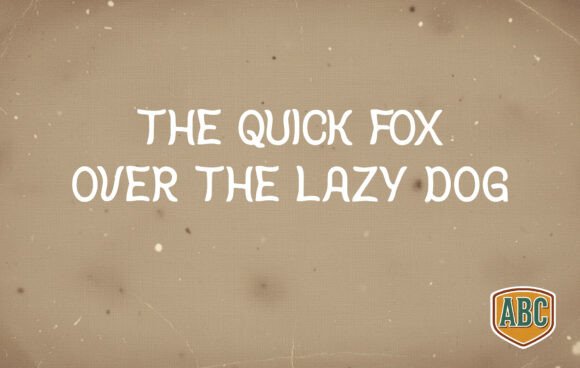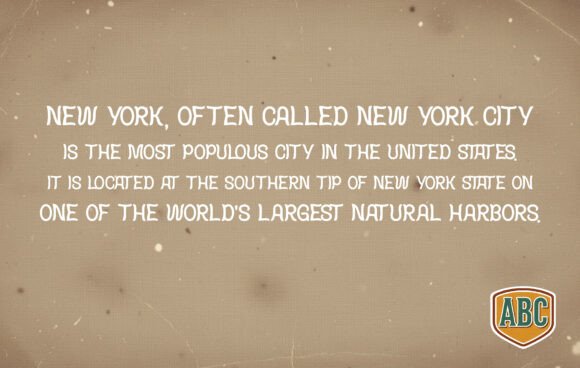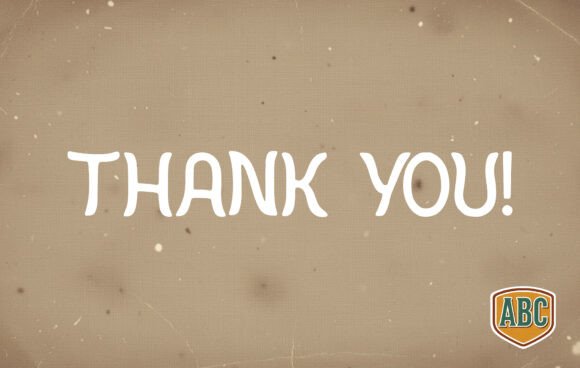
Bisque Font: Adding a Bounce of Joy and Personality to Your Designs
In the world of typography, a font can make all the difference in capturing the essence of a brand or message. The Bisque font is a modern typeface that has been gaining popularity among graphic designers for its unique blend of classic proportions and contemporary features. With its charismatic charm, Bisque brings a sense of “bounce” and rhythm to layouts, making it perfect for designers looking to add a touch of personality to their work.
A Perfect Blend of Classic and Modern
The Bisque typeface is an exemplary combination of traditional typographic proportions and modern expressiveness. Its design is rooted in classic typography, yet it boasts contemporary features that give it a fresh and youthful feel. This blend of old and new makes Bisque a versatile font that can be used in a variety of design contexts, from digital ads and mobile apps to stylish branding and editorial design.
Expressive and Charismatic
One of the standout features of the Bisque font is its expressive and charismatic nature. The font features intermittent areas of quietness and bold character, which makes it perfect for creating headlines that need to stand out without losing their sophisticated edge. This unique balance of boldness and subtlety gives Bisque a distinctive personality that can add a touch of joy and whimsy to any design.
Whether you are designing for a tech startup or a fashion magazine, the Bisque typeface offers a unique charisma that captures attention. Its versatility makes it suitable for a wide range of design projects, including:
- Digital ads: Bisque’s bold and expressive features make it perfect for creating eye-catching headlines that grab attention.
- Mobile apps: The font’s clean and modern design ensures that it remains legible even on smaller screens.
- Stylish branding: Bisque’s charismatic personality makes it ideal for brands looking to add a touch of personality to their identity.
- Editorial design: The font’s classic proportions and modern features make it suitable for use in magazines, newspapers, and other editorial projects.
Highly Versatile and Professional
The Bisque font is highly versatile, supporting everything from scientific typesetting to high-impact web headings. This means that designers can use Bisque for a wide range of projects, from academic papers and technical reports to website headers and promotional materials. Despite its versatility, Bisque remains professional and polished, ensuring that your text always looks sleek and sophisticated.
Why Designers Love Bisque
So, why have graphic designers fallen in love with the Bisque font? Here are just a few reasons:
- Unique personality: Bisque’s charismatic charm and expressive features give it a distinctive personality that sets it apart from other fonts.
- Versatility: The font’s versatility makes it suitable for a wide range of design projects and applications.
- Legibility: Bisque’s clean and modern design ensures that it remains legible even in smaller sizes.
- Professionalism: Despite its playful personality, Bisque remains professional and polished, making it suitable for use in a variety of contexts.
In conclusion, the Bisque font is a modern typeface that offers a unique blend of classic proportions and contemporary features. Its expressive and charismatic nature makes it perfect for designers looking to add a touch of personality to their work. With its versatility, legibility, and professionalism, Bisque is an excellent choice for a wide range of design projects, from digital ads and mobile apps to stylish branding and editorial design. So, why not give Bisque a try and bring a sense of “bounce” and rhythm to your layouts?